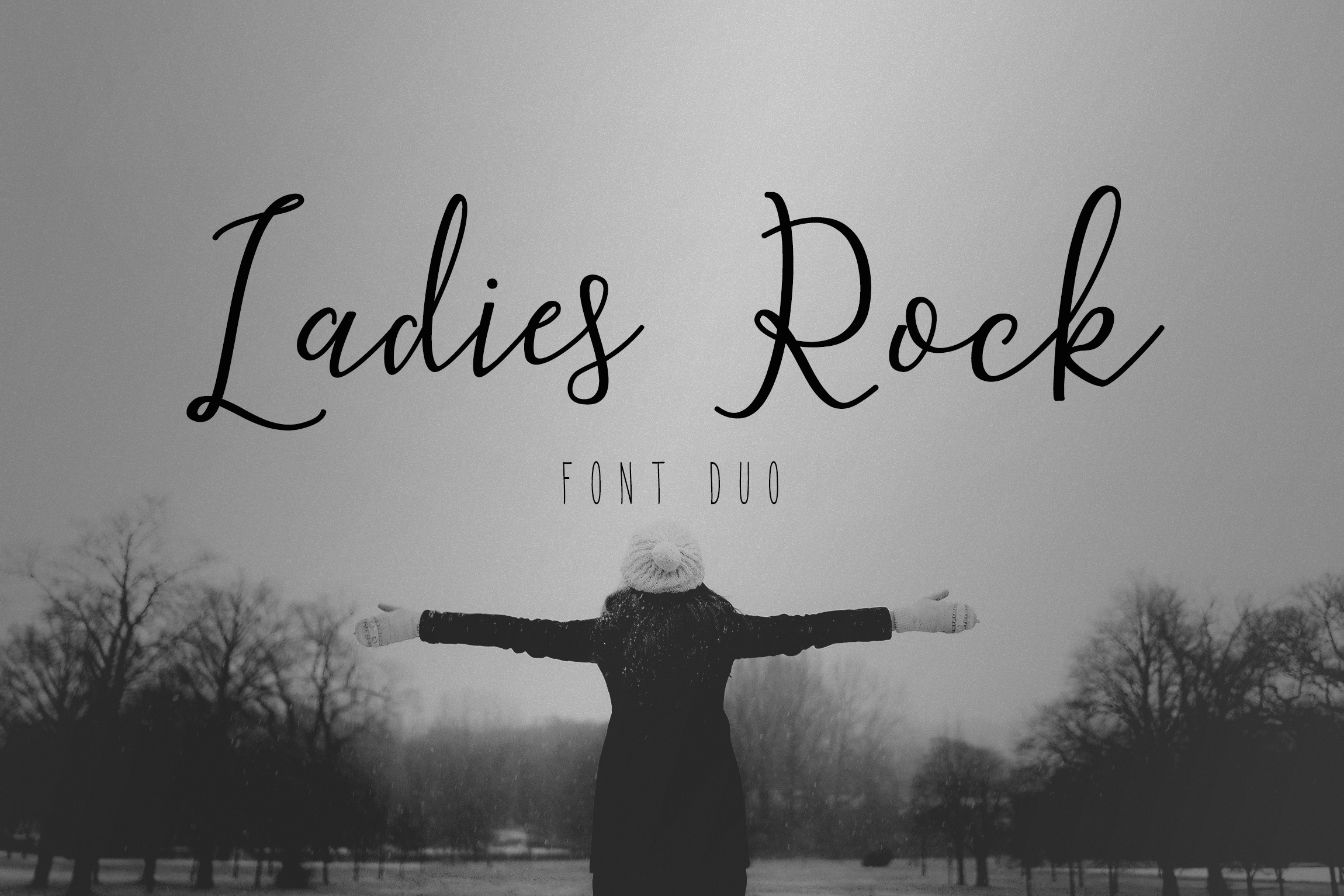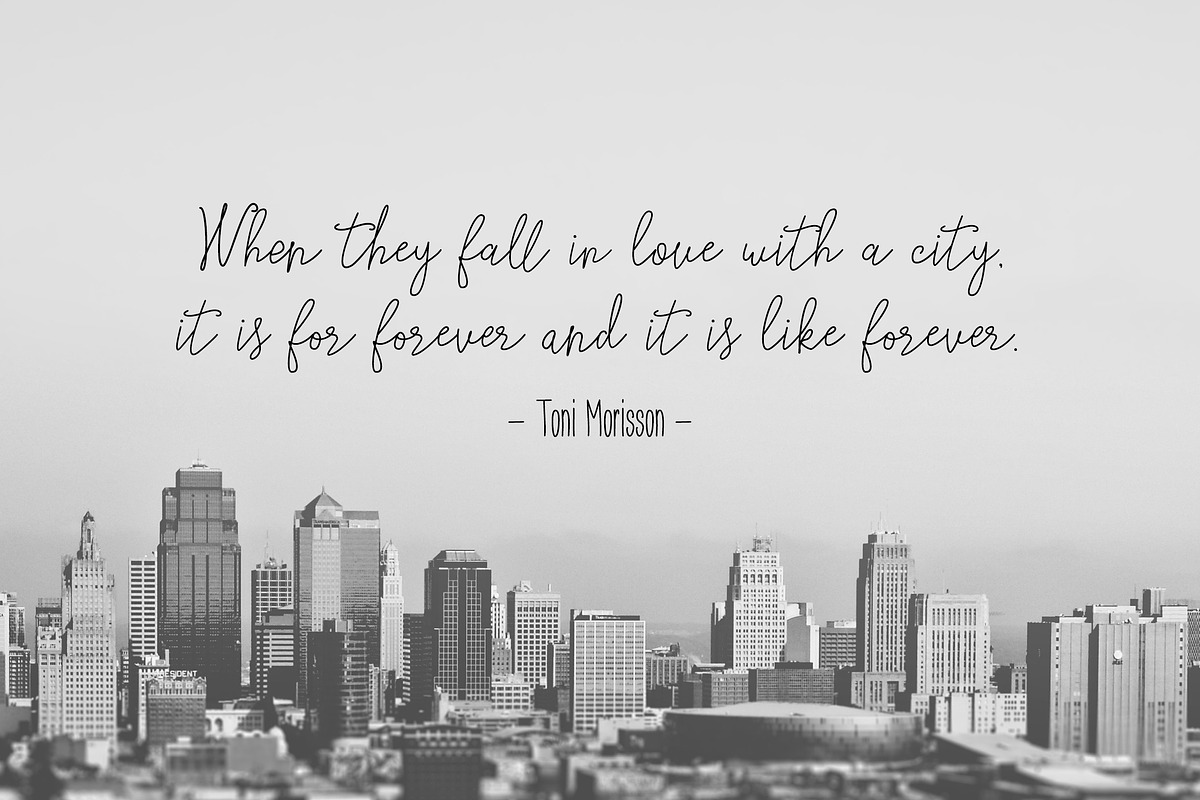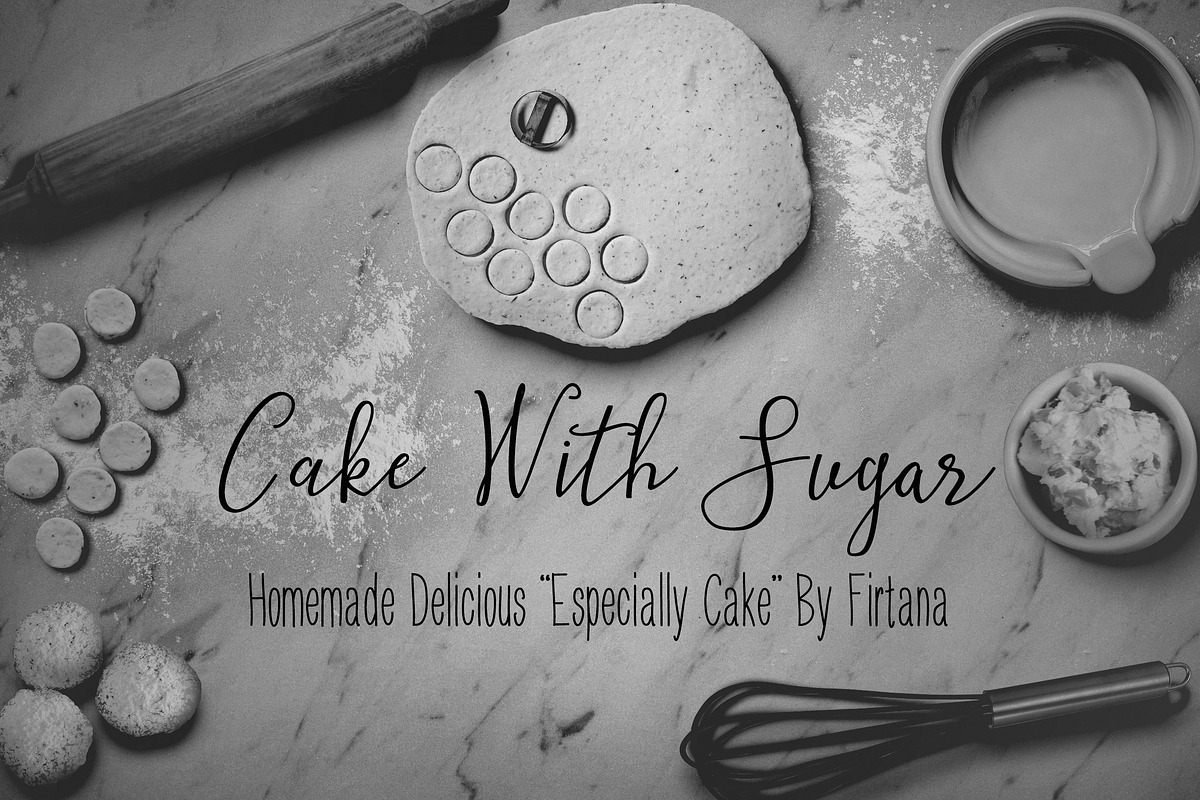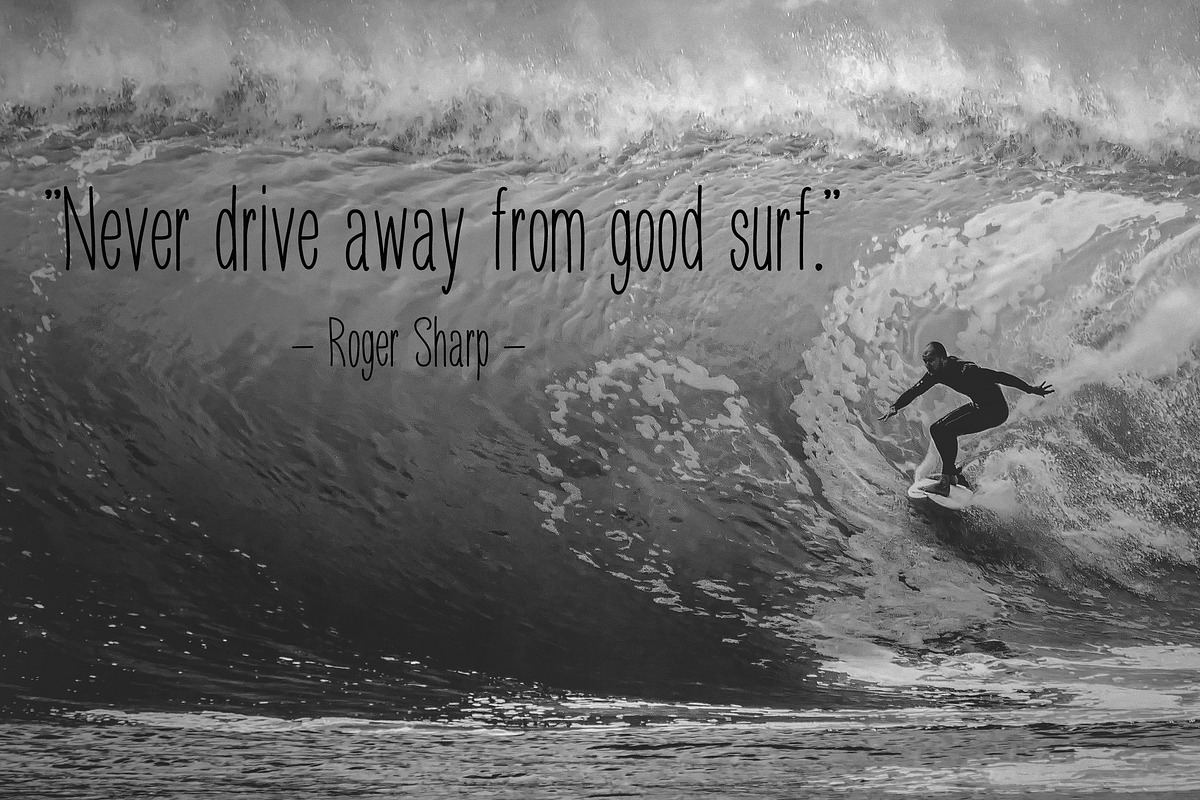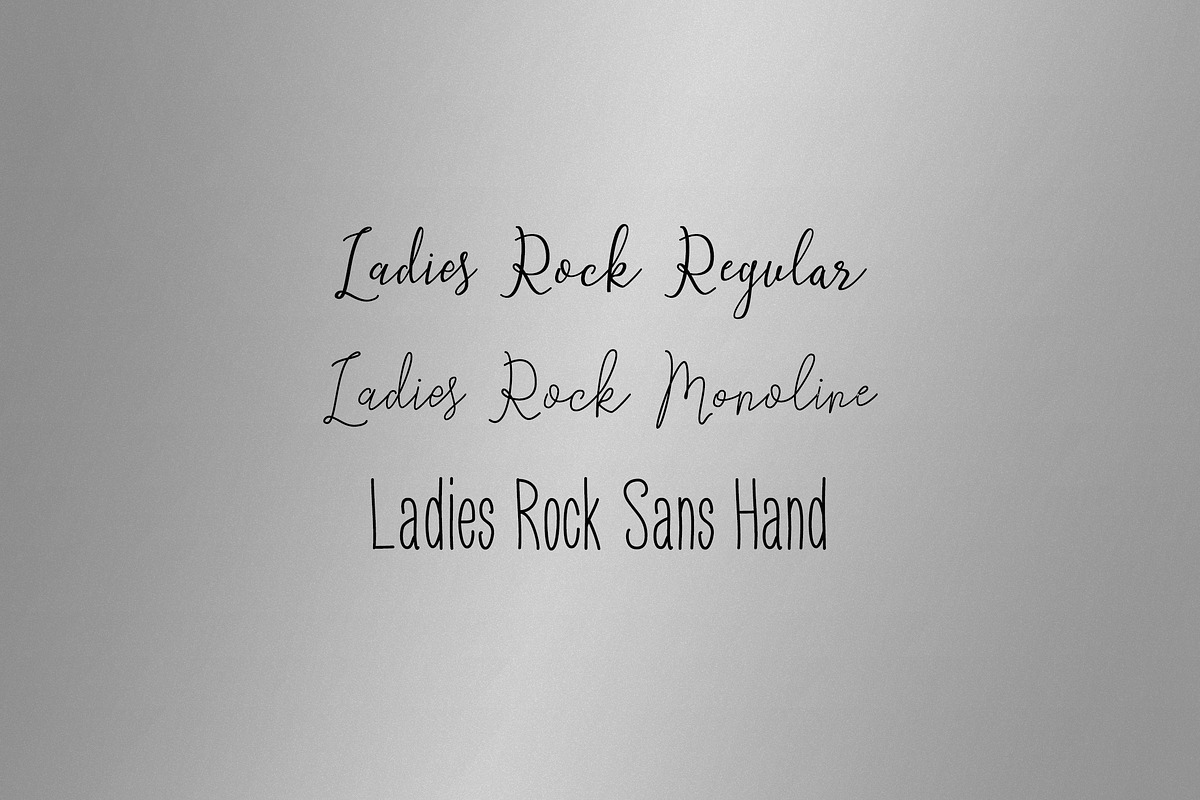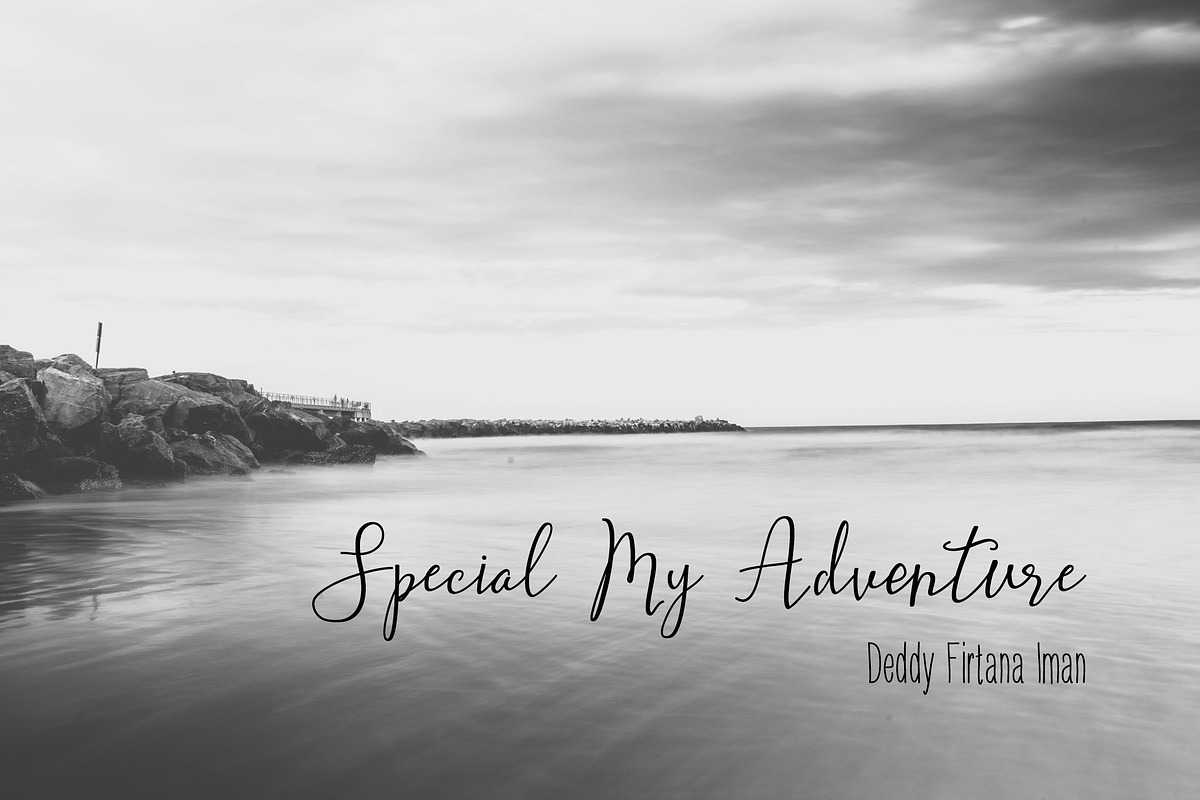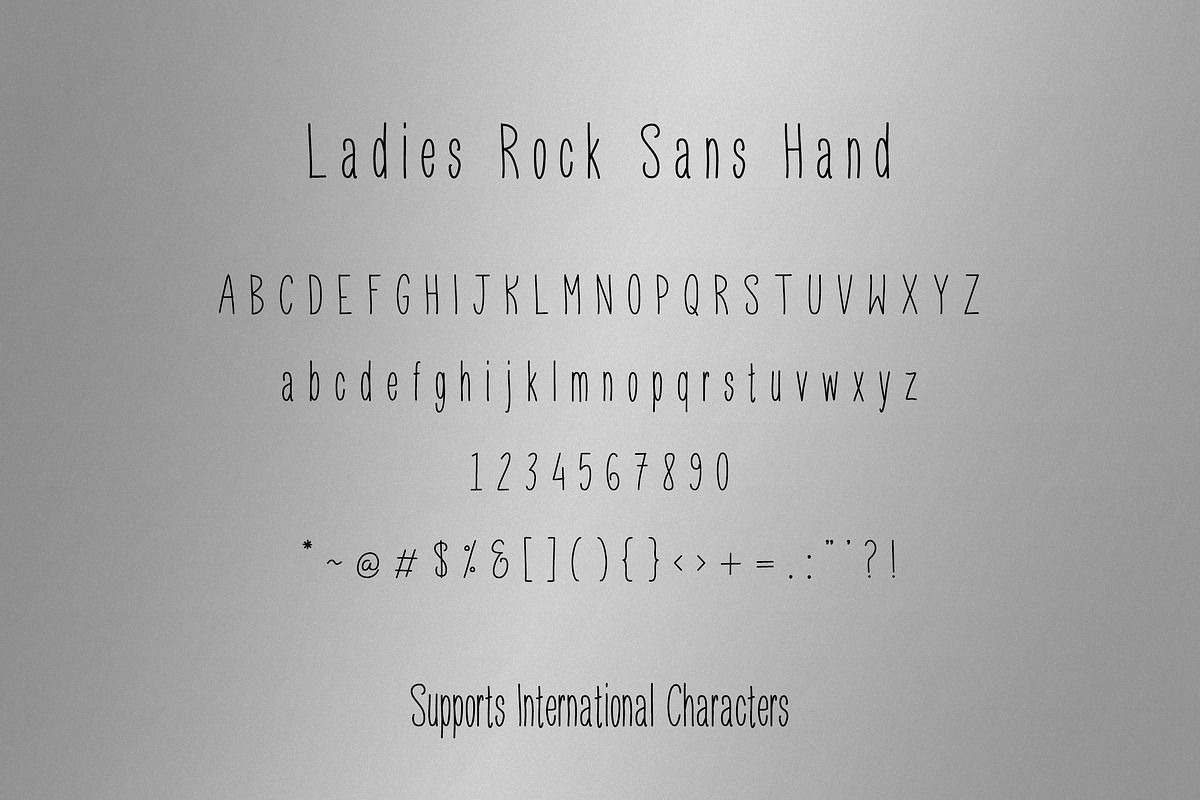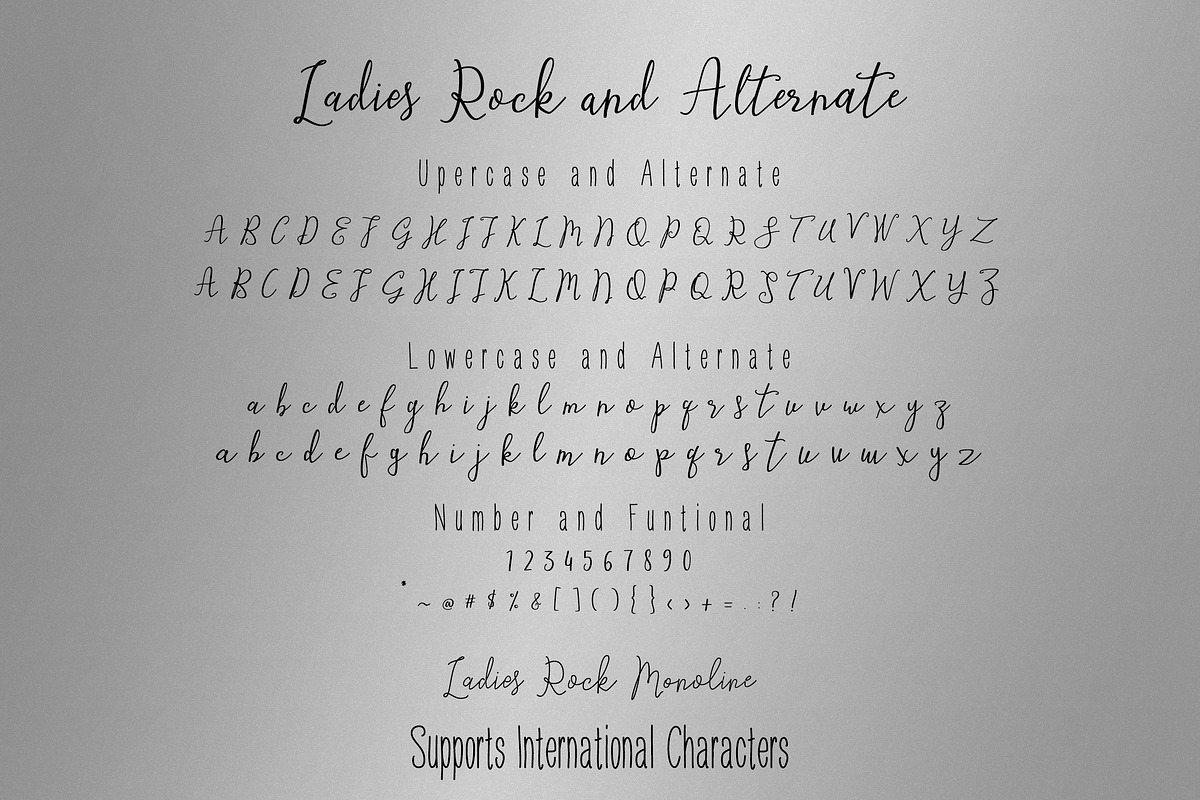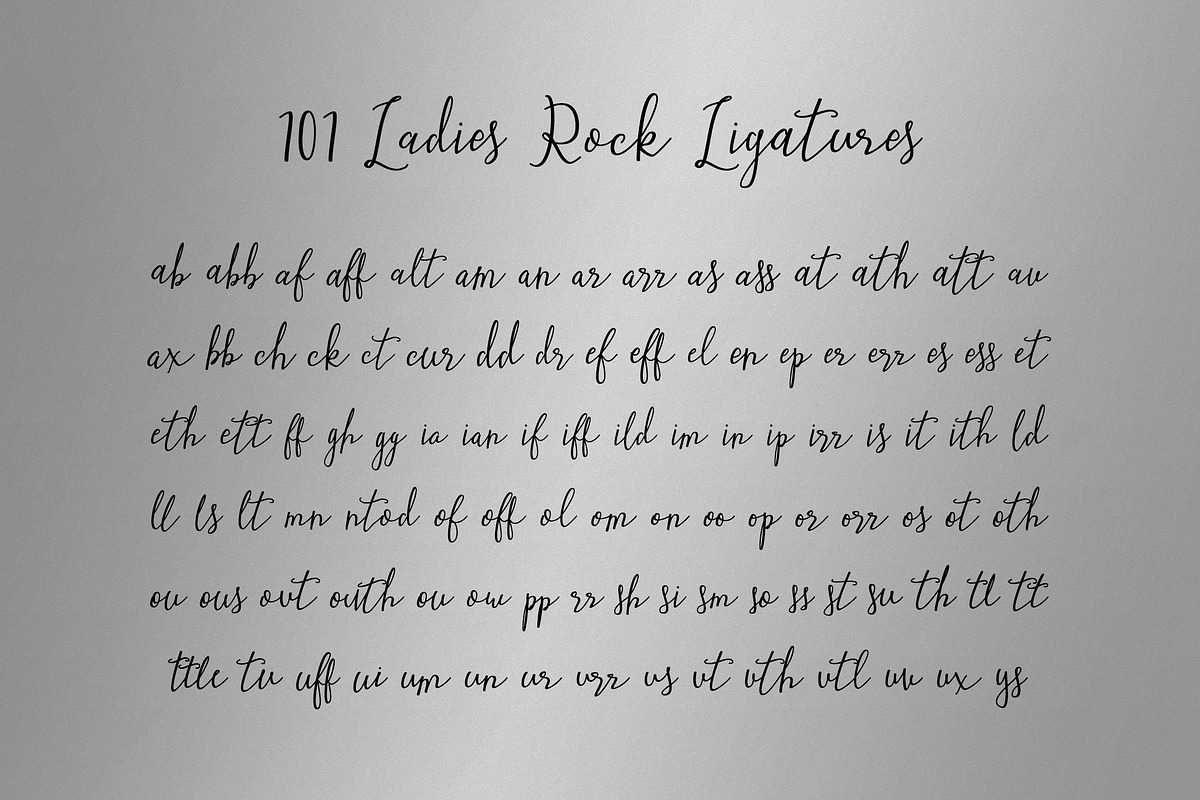
Ladies Rock Font Duo
"Ladies Rock Font Duo" it is perfect for blogging, social media, branding, magazines, portfolio, wedding invites and cards.
"Ladies Rock Font Duo" includes full set of gorgeous uppercase and lowercase letters, numerals of punctuation and ligatures style set.